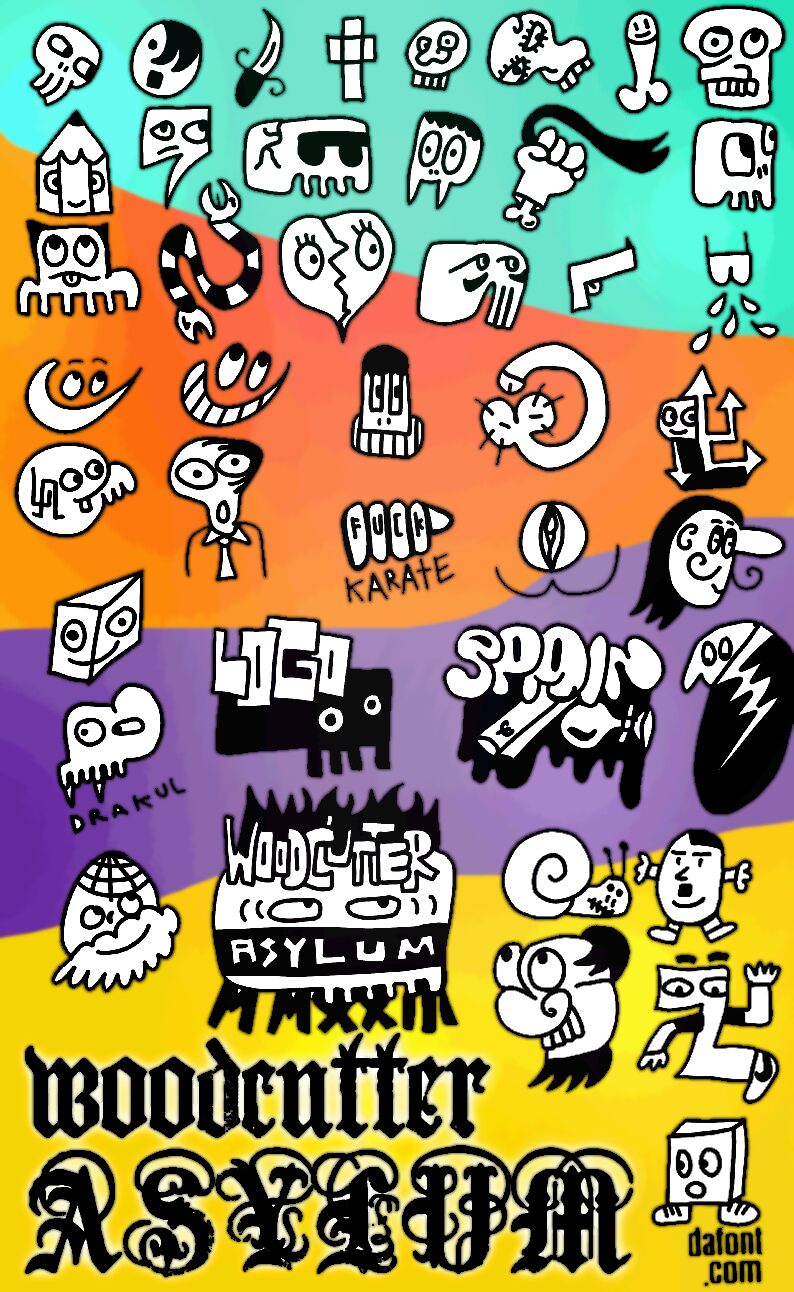
Woodcutter Asylum
Woodcutter Asylum font is a free dingbats display font by Woodcutter. Bold, cartoonish forms give it quirkiness and a unique charming appearance. To define its style even further, this expressive font is also whimsical and imaginative. Give your design projects an artistic touch with this playful typeface.
An excellent artistic resource for trumpeting texts in magazines, books, comics & cartoons, blogs & newsletters, websites and applications that support special digital fonts on social networks; especially during Halloween! Also valuable as headlines or titles for posters, billboards or menus in addition to product packaging across various industries from games to snacks.